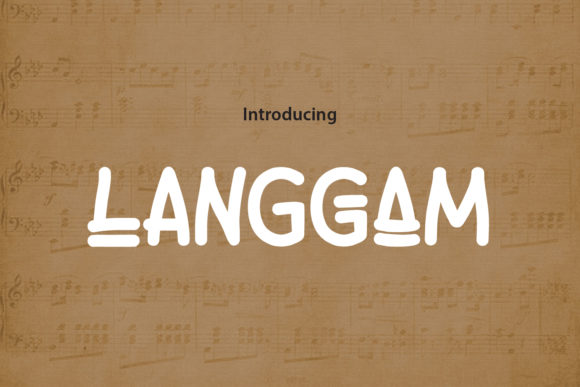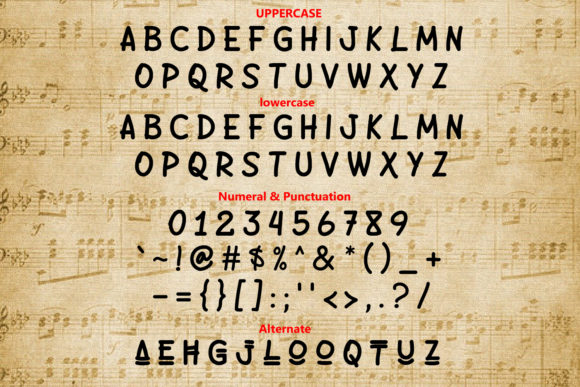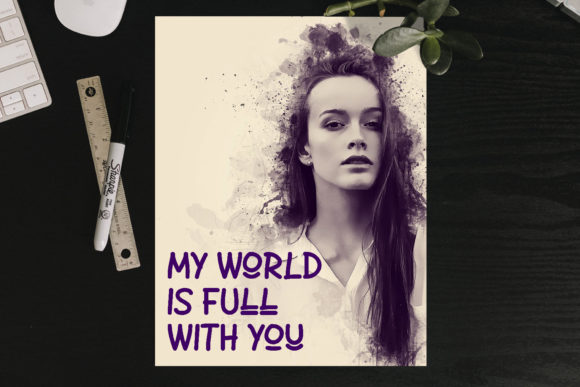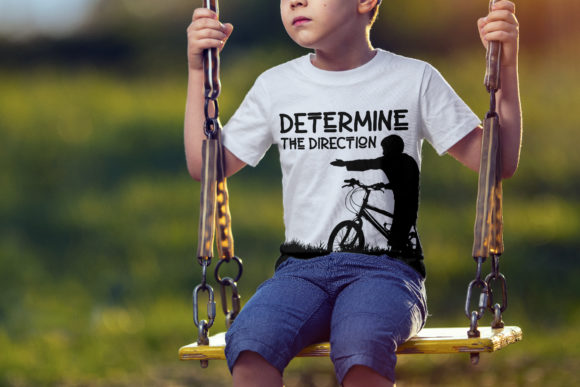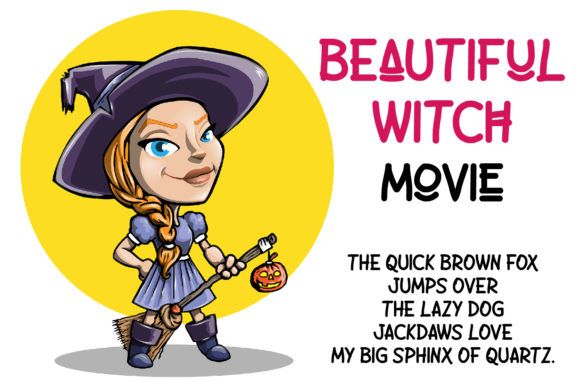
Langgam Font
About Langgam Font
Langgam is a modern and elegant handwritten font with an incredibly classic feel. Whether it’s for web, print, moving images or anything else – Langgam will look spectacular.